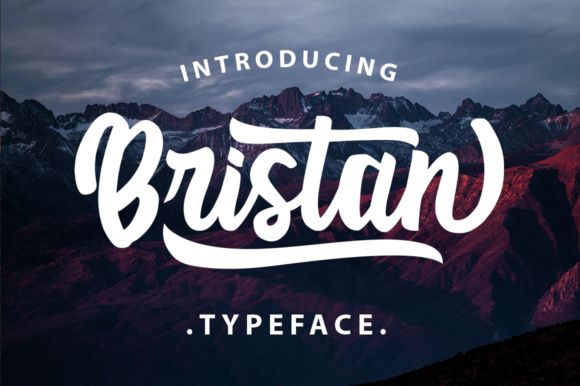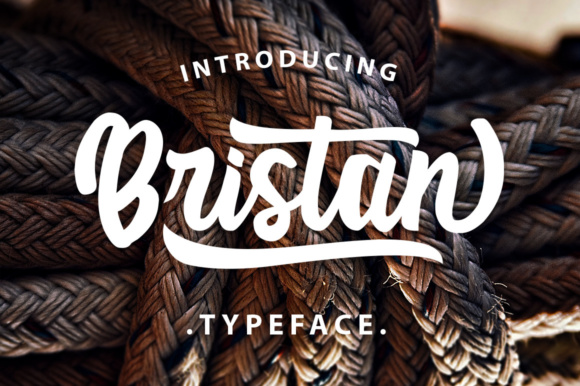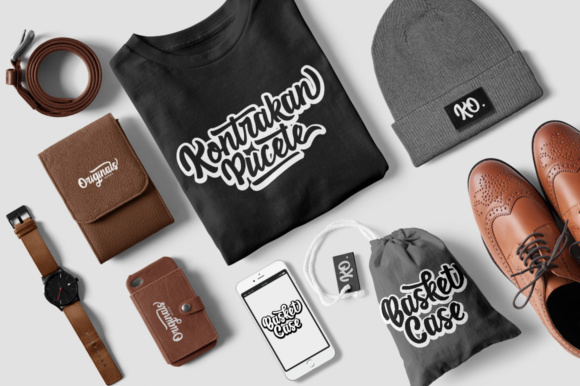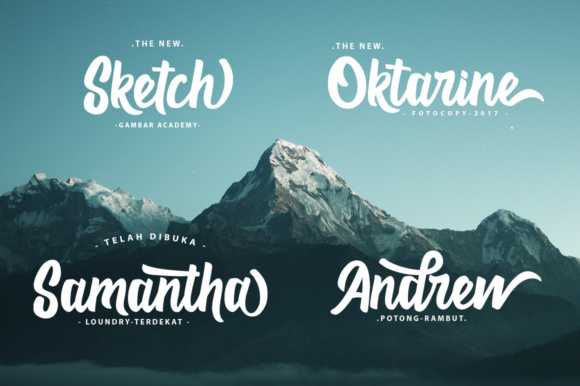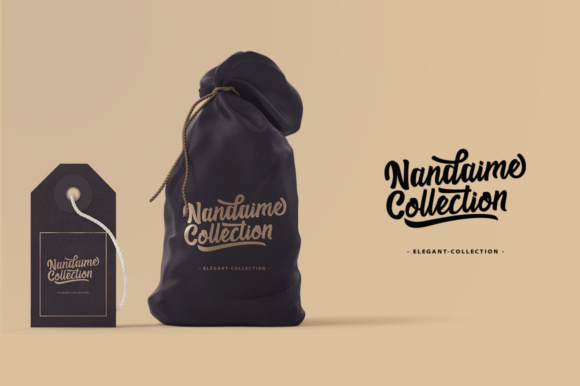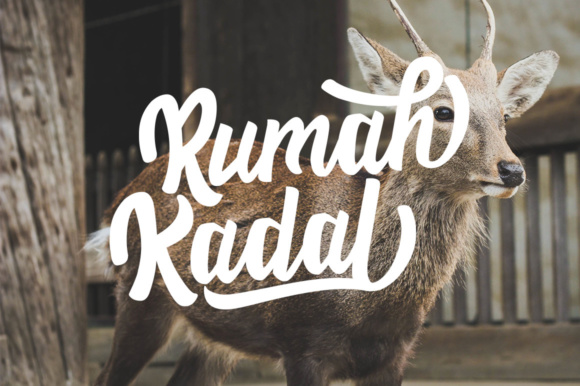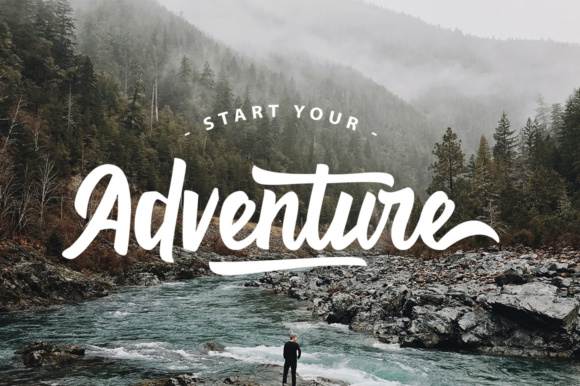
Bristan Font
About Bristan Font
Bristan is a beautiful script typeface. Bristan can be used for various purposes such as wedding cards, logotypes, website headers, fashion designs and much more.